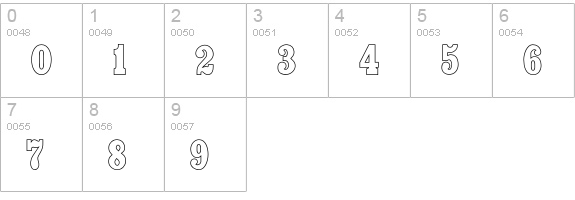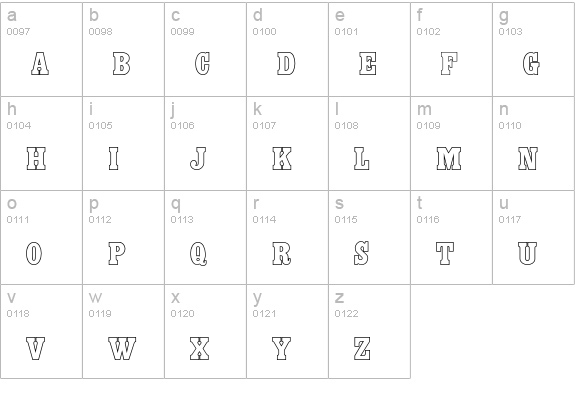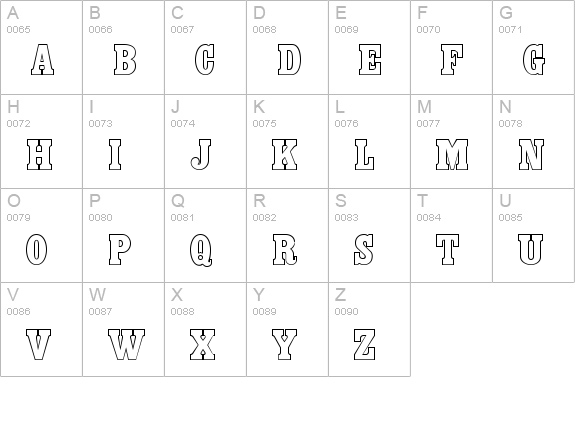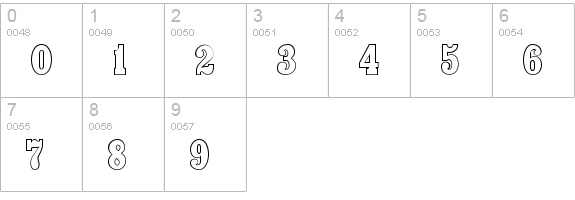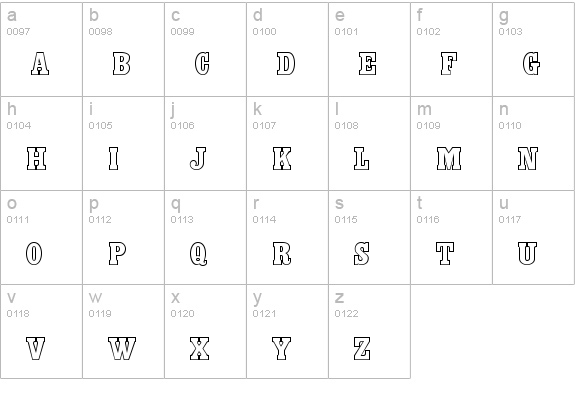
HeadlinerOutline Font Details
HeadlinerOutline is a sleek and modern font that is perfect for making a bold statement. With its clean lines and sharp edges, this font exudes confidence and professionalism. Whether you are designing a poster, a logo, or a headline, HeadlinerOutline is sure to catch the eye and leave a lasting impression. What makes HeadlinerOutline even more appealing is that it is available for free download at FontsMarket.com. Yes, you read that right - this amazing font can be yours without spending a dime. FontsMarket.com is a trusted source for high-quality fonts, and they are proud to offer HeadlinerOutline as a freely available option. With HeadlinerOutline, you can create striking designs without breaking the bank. Its versatility allows it to be used in a variety of projects, from advertising campaigns to social media graphics. This font is all about making a statement and commanding attention. So, why wait? Head over to FontsMarket.com and download HeadlinerOutline for free today. Elevate your designs and make them truly unforgettable with this stylish and impactful font.